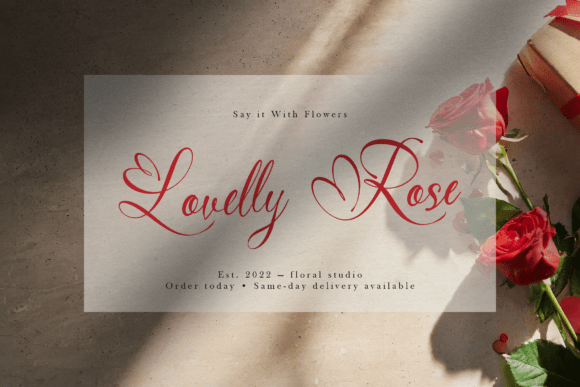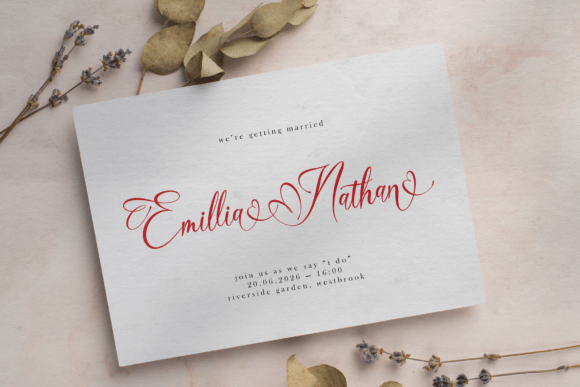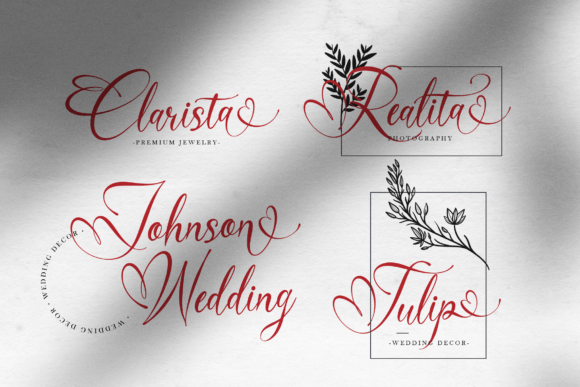
Introduction to Sabrysoul Font
📌 Product Name Sabrysoul Font
👤 Author Gracetypestudio
Key Features of Sabrysoul Font
Why Choose Sabrysoul Font?
Sabrysoul Font offers exceptional quality and versatility, making it a valuable addition to your design toolkit. Whether you’re creating for personal projects or commercial use, Sabrysoul Font delivers professional results.